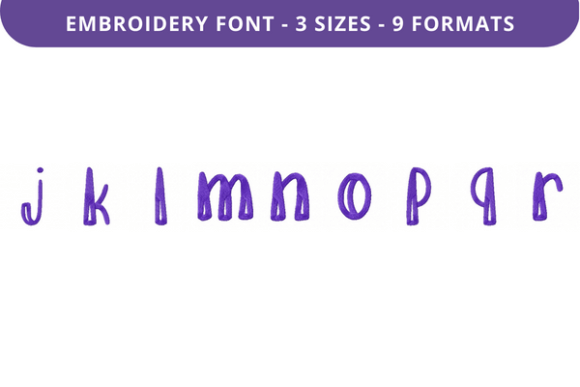
Transform Your Designs with Ease My Mind Font J to R
A Versatile Embroidery Font for Creative Expression
If you're looking for a font that can elevate your embroidery projects with elegance and clarity, Ease My Mind Font J to R is an excellent choice. This high-quality embroidery font is designed to bring a refined touch to any fabric-based design. Whether you're crafting personalized gifts, branding materials, or artistic pieces, this font offers both aesthetic appeal and functional versatility.
Why Choose Ease My Mind Font J to R?
Ease My Mind Font J to R stands out for its clean lines, consistent spacing, and elegant letterforms. It's crafted specifically for use in machine embroidery, ensuring that each character maintains its shape and readability even when stitched onto fabric. The font’s design allows for seamless integration into a wide range of creative projects, making it ideal for both beginners and experienced embroiderers.
Practical Applications Across Multiple Domains
The utility of Ease My Mind Font J to R extends beyond personal projects. Its versatility makes it suitable for use in professional, educational, and commercial settings. Here are some real-world applications:
- Personal Use: Customize clothing, bags, or home decor items with meaningful names, dates, or quotes. This font adds a touch of sophistication to everyday items.
- Professional Branding: Incorporate the font into logos, signage, or promotional materials to create a cohesive brand identity. Its clean appearance enhances visual communication and professionalism.
- Educational Projects: Teachers and educators can use this font to create visually engaging classroom materials, flashcards, or student awards. It helps in making learning more interactive and memorable.
- Creative Workshops: Artists and crafters can integrate the font into their designs for murals, wall art, or custom textiles. It provides a stylish element that complements various artistic styles.
- Digital Content Creation: Bloggers, content creators, and social media influencers can use this font in digital embroidery designs for online showcases, tutorials, or product listings.
- Commercial Products: Entrepreneurs and small business owners can leverage this font to create branded merchandise, such as embroidered t-shirts, patches, or labels. It offers a cost-effective way to enhance product value.
Key Features That Make It Stand Out
Ease My Mind Font J to R is not just about aesthetics—it’s also about functionality. Here are some of its notable qualities:
- High-Quality Stitching: Each character is designed with precision to ensure sharp, clear stitches on fabric, reducing the risk of distortion or misalignment.
- User-Friendly Design: The font is easy to navigate and customize, making it accessible to both novice and advanced users.
- Consistent Styling: The uniformity in letter shapes and spacing contributes to a polished look, whether used in large-scale designs or small details.
- Wide Character Set: It includes a comprehensive range of characters, including uppercase and lowercase letters, numbers, and special symbols, providing flexibility for diverse projects.